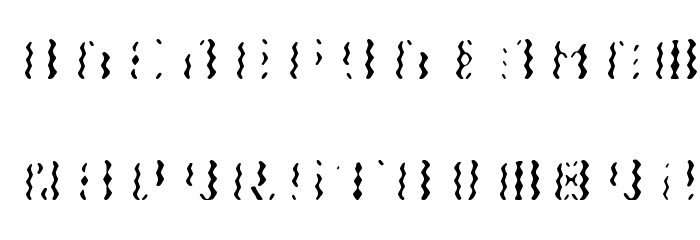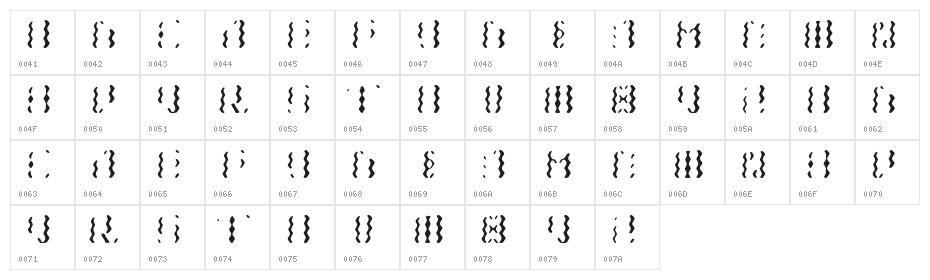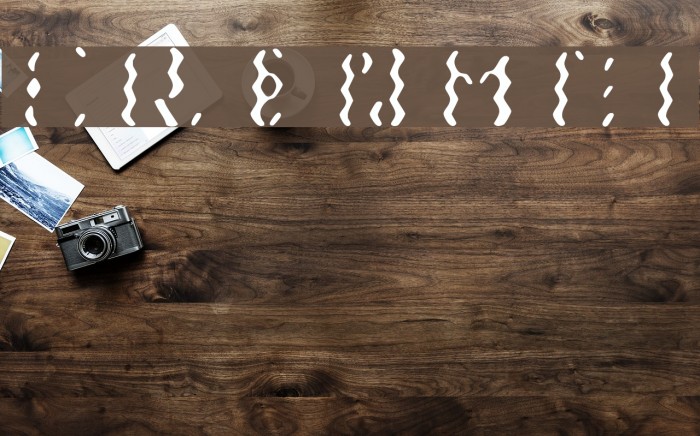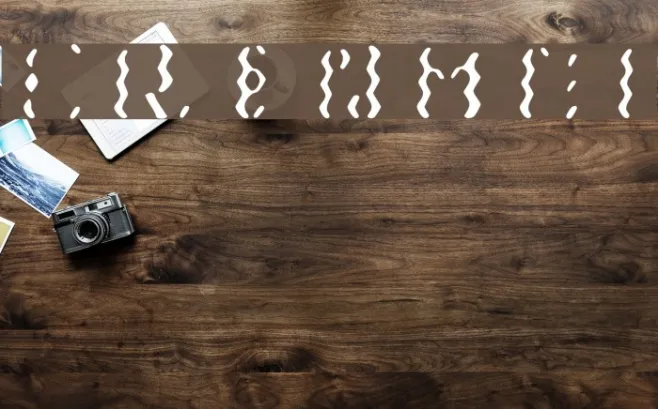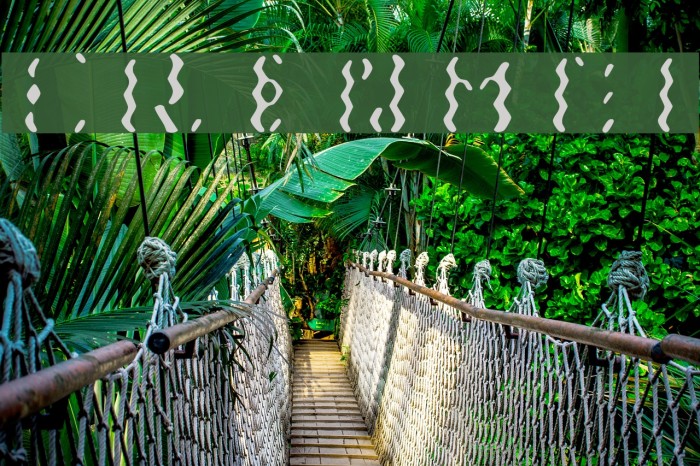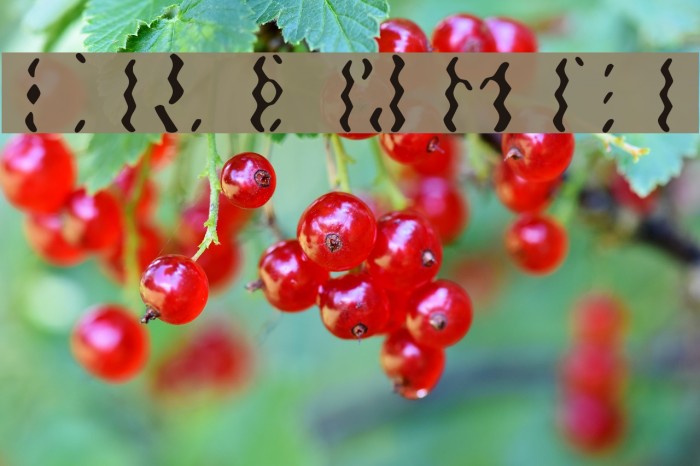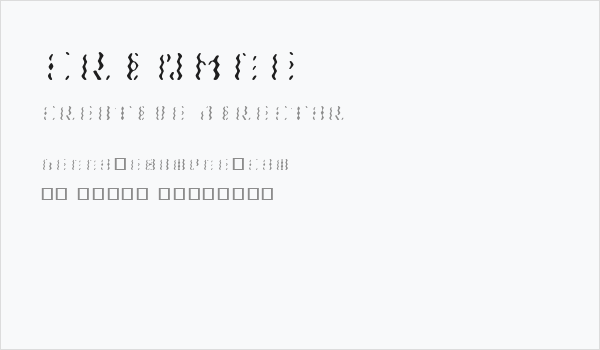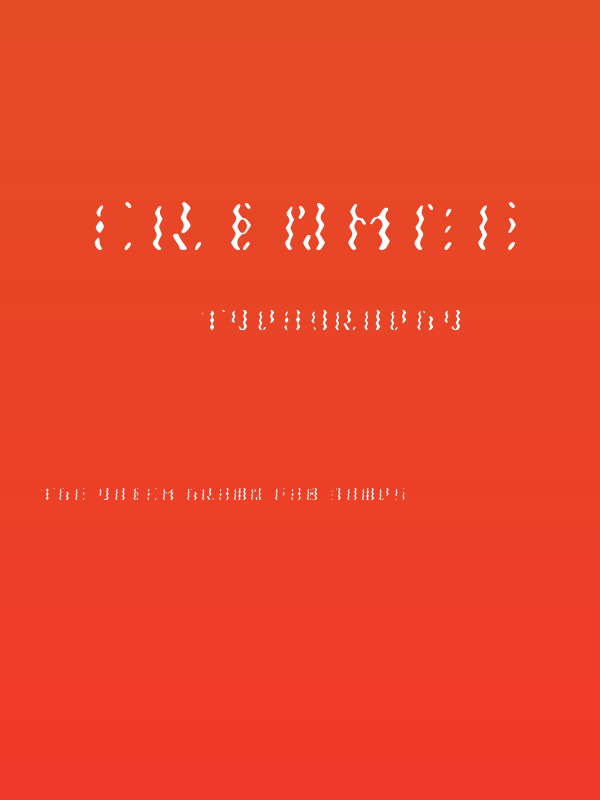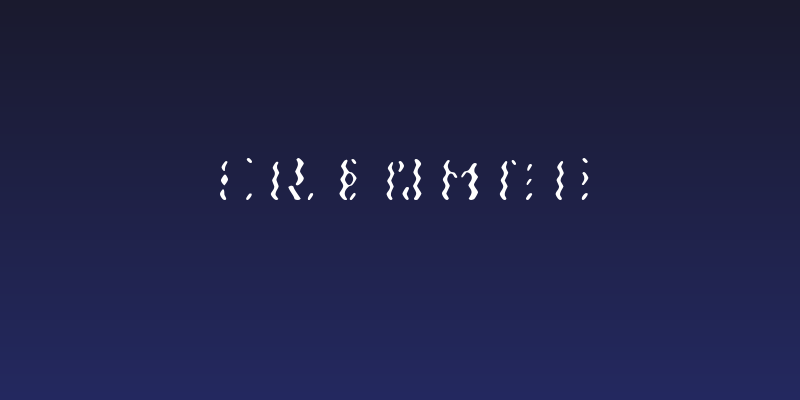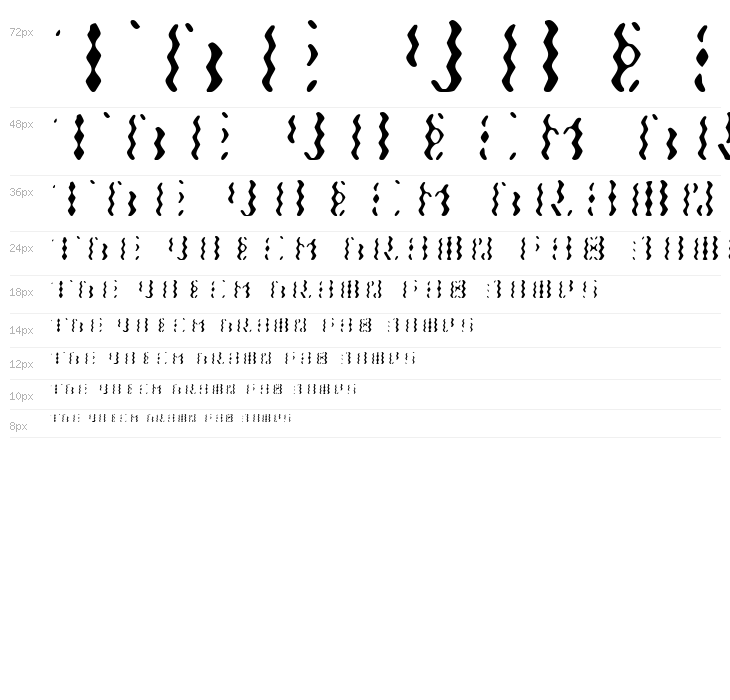
Crinkle Font
Crinkle Description
This font features a unique crinkled effect, giving each character a wavy, distorted appearance. The design is highly decorative, with each letter appearing as if it has been crumpled or folded, creating an intriguing visual texture. The characters maintain a consistent height and width, ensuring readability despite their unconventional style. This font is ideal for projects that require a playful or artistic touch, as it stands out with its distinctive and creative form. The spacing between characters is normal, allowing for clear legibility while maintaining its artistic flair.
| Proposed Projects | Ideal for creative projects such as posters, album covers, or branding that seeks a unique and artistic look. |